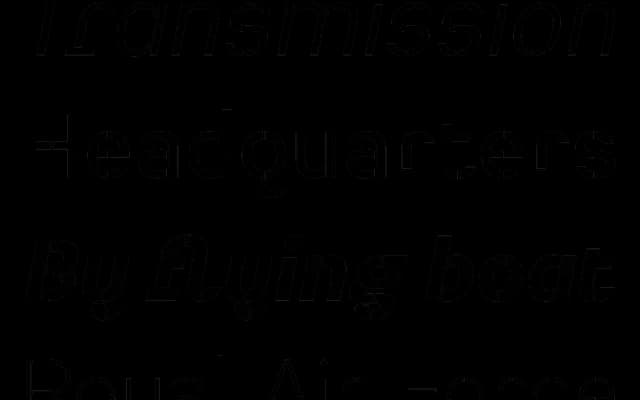
Heimat Stencil
A stencil display typeface from Atlas Fonts, likely part of the wider Heimat family of designs.
Heimat Stencil is a stencil variant in the Heimat series from Atlas Fonts, built for headline and display use where interrupted strokes add a graphic, structured quality. The stencil treatment lends itself to editorial, poster and identity work requiring a bold, architectural presence. Minimal information was available from the page, so details on weights and language coverage are limited.
Stencil typefaces are display-category designs defined by their interrupted strokes, used for decorative and headline purposes. The 'Heimat' naming suggests a relationship to a broader Atlas family of the same name.